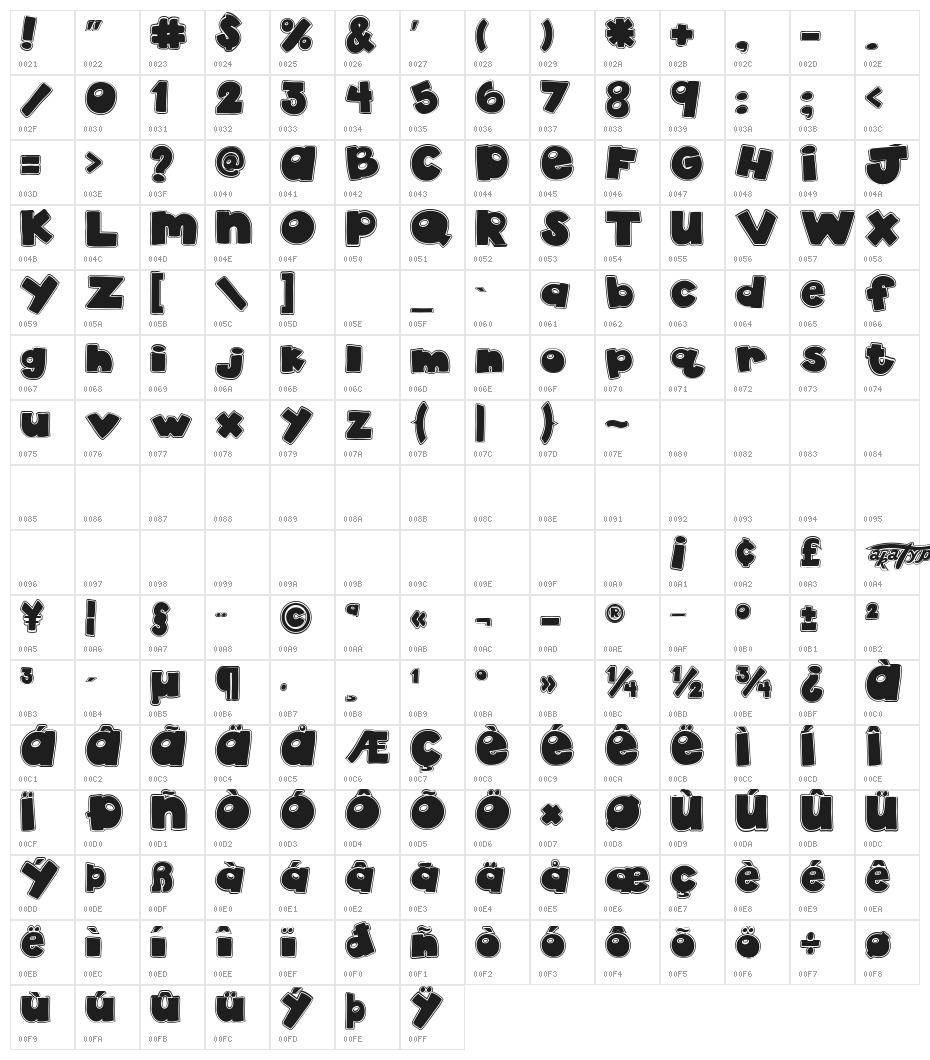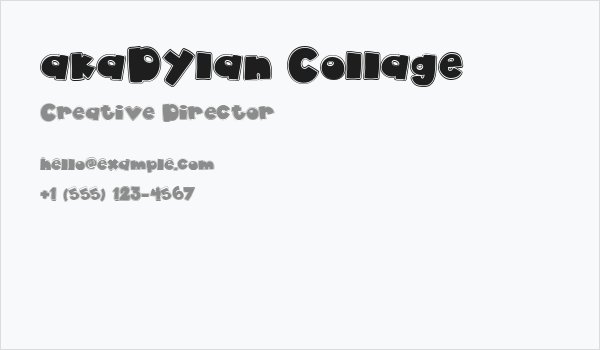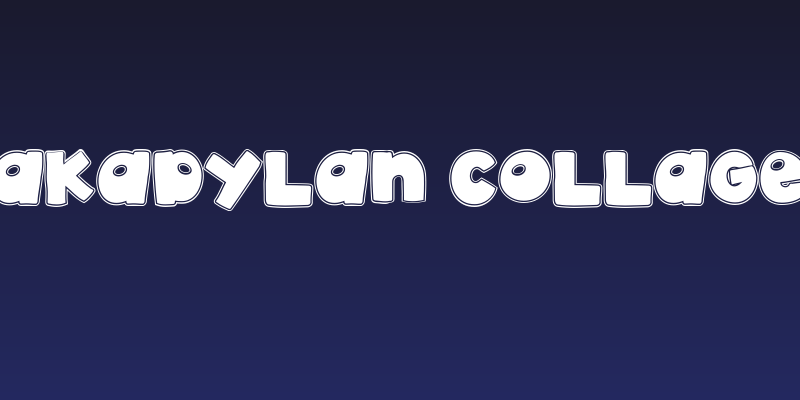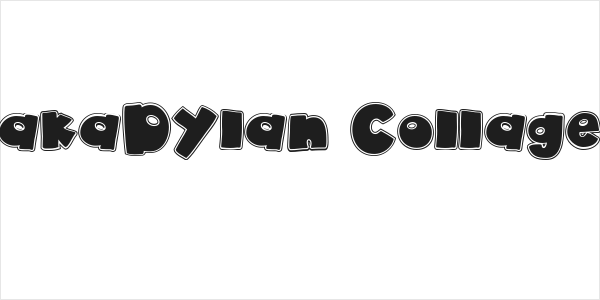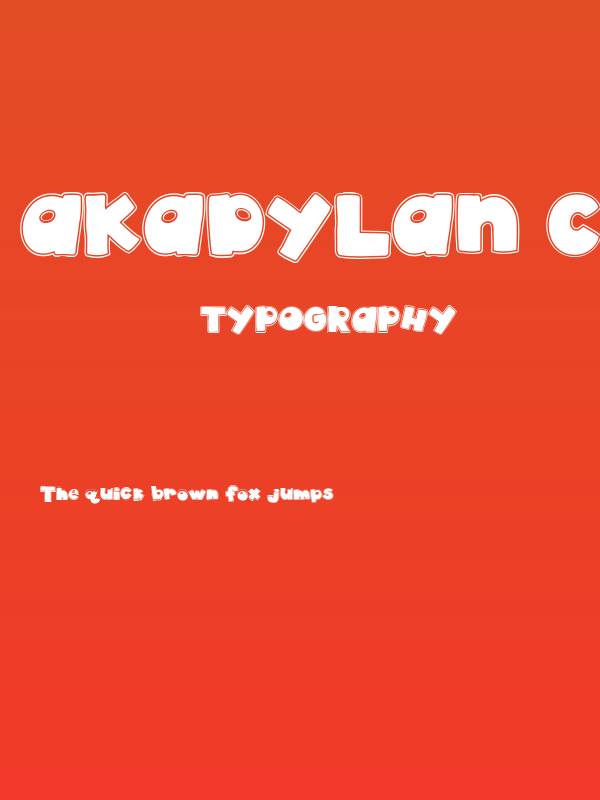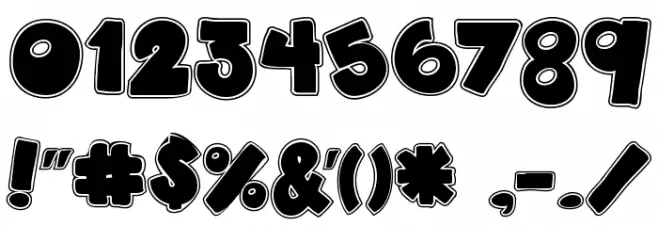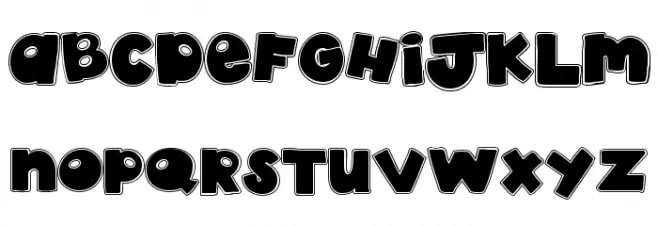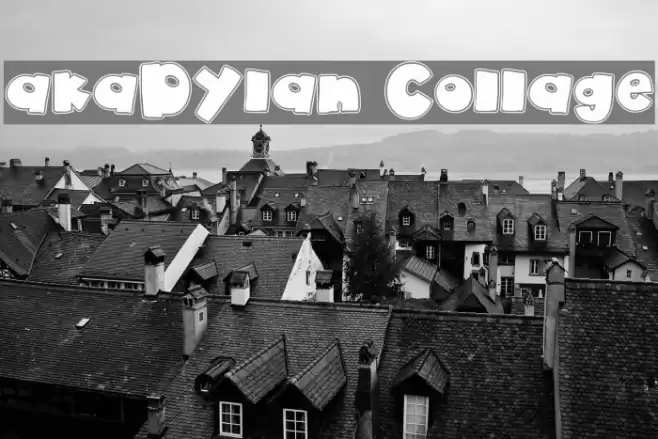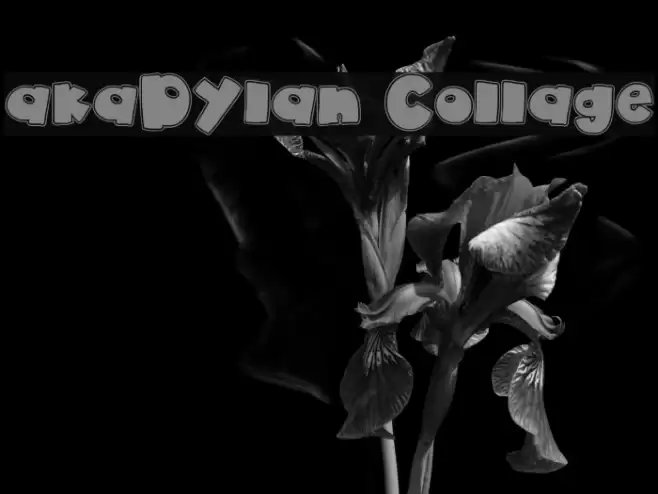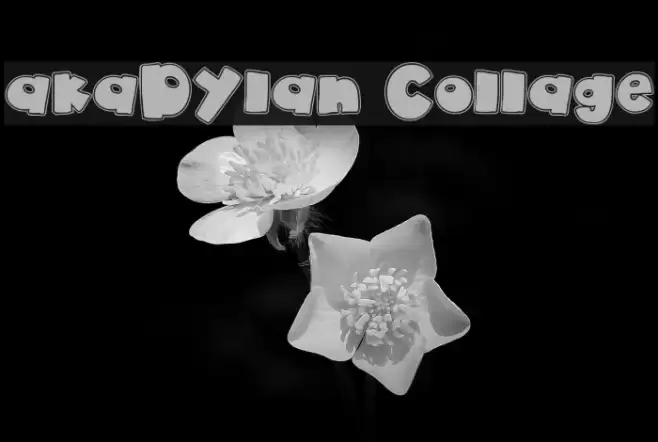
akaDylan Collage Font
| Stil general | Playful, Cartoonish |
| Proiecte propuse | Ideal for children's books, comic strips, playful branding, and party invitations. |